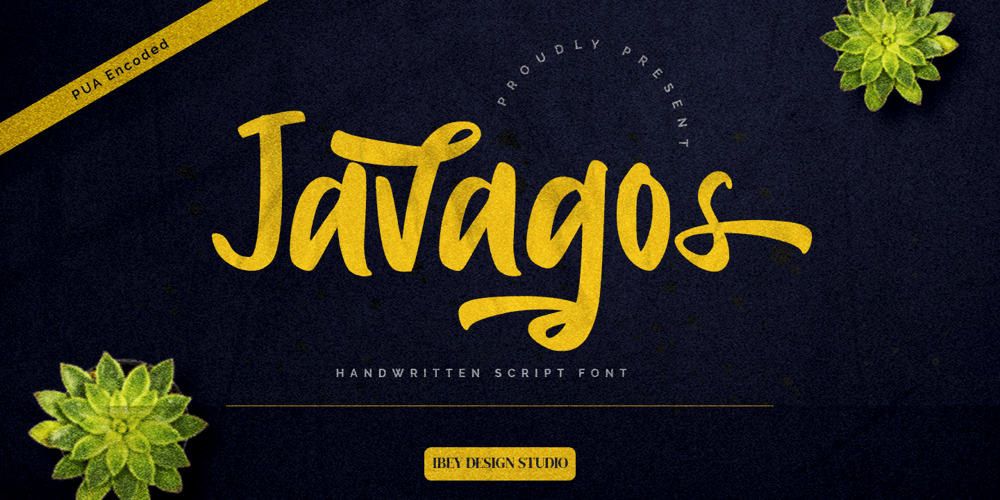
Javagos Font Family was designed by Ikrar Bey Khubaib and published by IbeyDesign. Javagos contains 1 styles and family package options. Javagos Handwritten Script Font is a cool, friendly, and trendy handwritten font. Not too thin and not too thick, balanced and varied, this was designed to enhance the beauty of your projects.